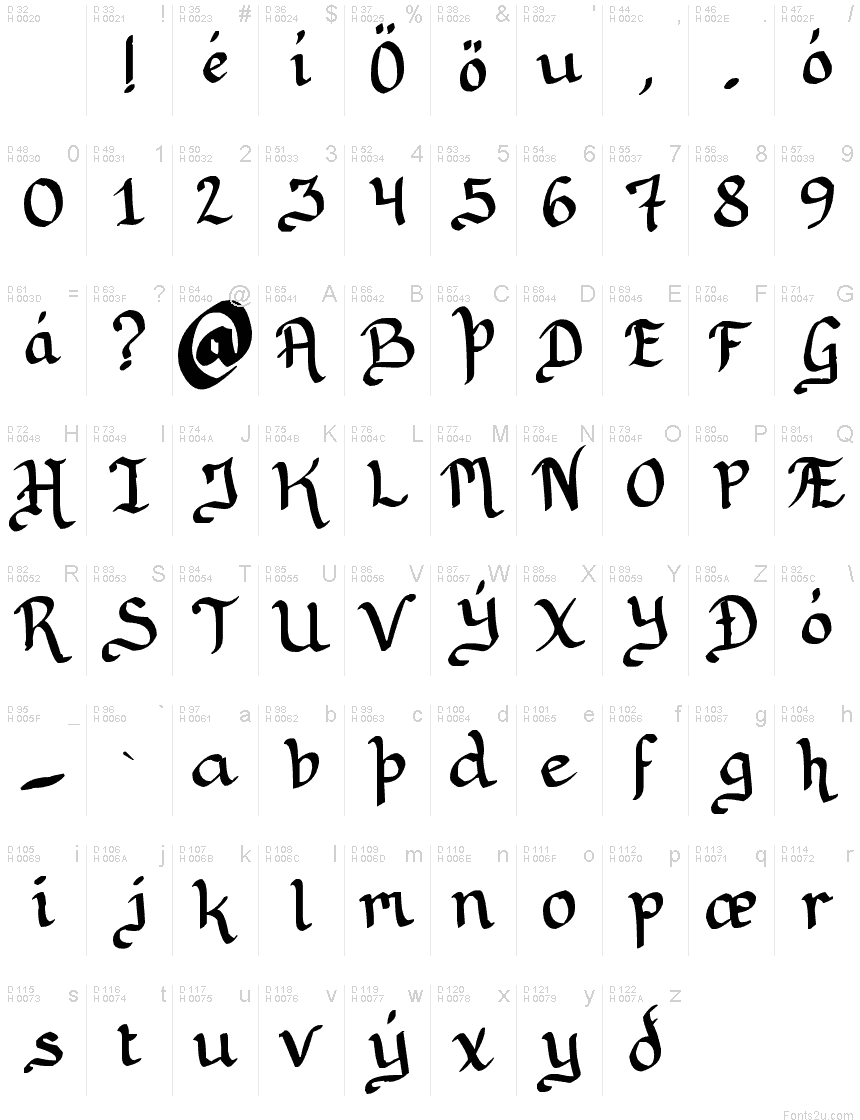
Rithondinmin from FontPanda.com is a free calligraphic display font with broad, dark strokes and sharply hooked ends. Uneven curves keep its manuscript character lively.
As a theatrical title, it suggests old legends, courtly drama, and dark folklore. Its sweeping shapes also suit fantasy covers, game graphics, and music posters with an ornate, unruly edge. For event branding, the letters can become part of a crest or illustrated banner instead of neutral type.